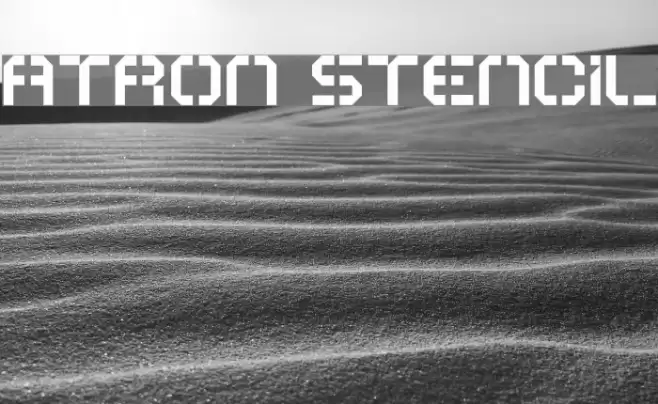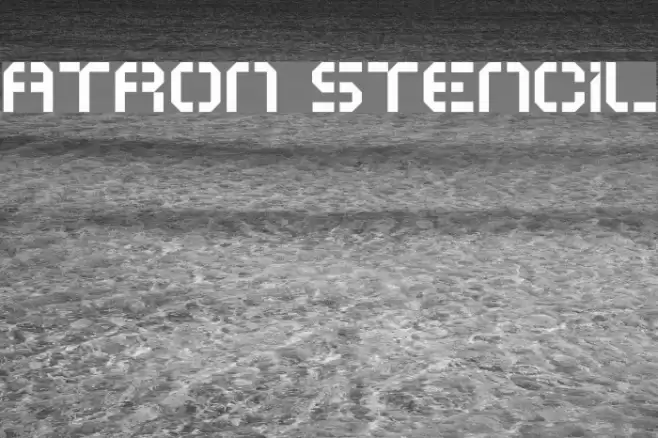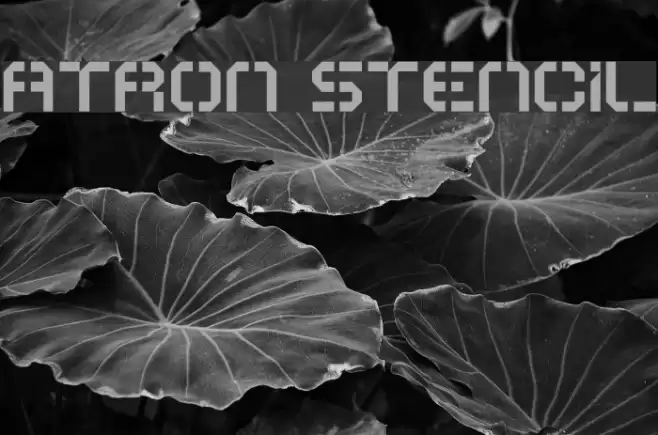
ATRON Stencil Font
ATRON Stencil Description
This font features a bold, geometric stencil design with distinct cut-out sections that give it a modern, industrial feel. The characters are constructed with straight lines and sharp angles, creating a sense of precision and strength. The uppercase and lowercase letters maintain a consistent style, with each character having a unique pattern of breaks that enhance the stencil effect. The numerals and special characters follow the same design principles, ensuring uniformity across the entire typeface. This font is ideal for projects that require a strong, impactful visual presence.
A bold, geometric stencil font with a modern, industrial aesthetic from Uncategorized fonts.
- Proposed Projects: Ideal for branding, signage, posters, and any project requiring a strong, industrial look.